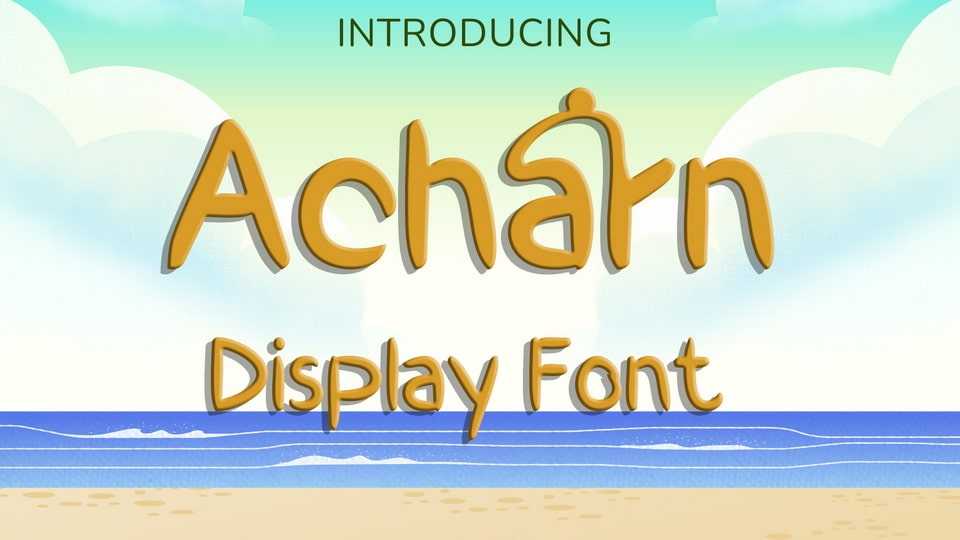
Download Acharn font, a display typeface that brings the spirit of adventure and creativity to every design. Inspired by the freedom of hand-drawn lettering and the beauty of organic forms.